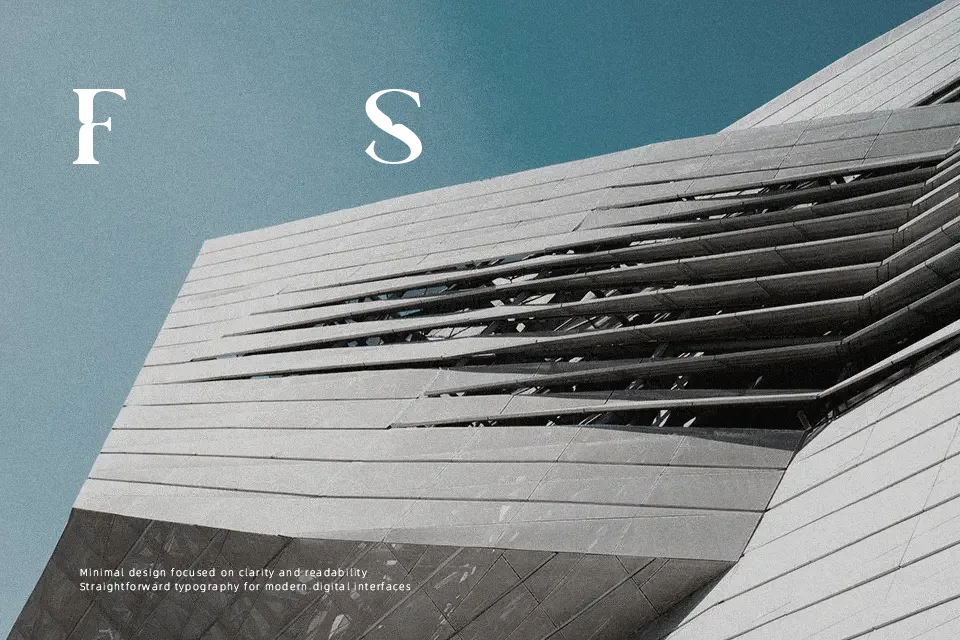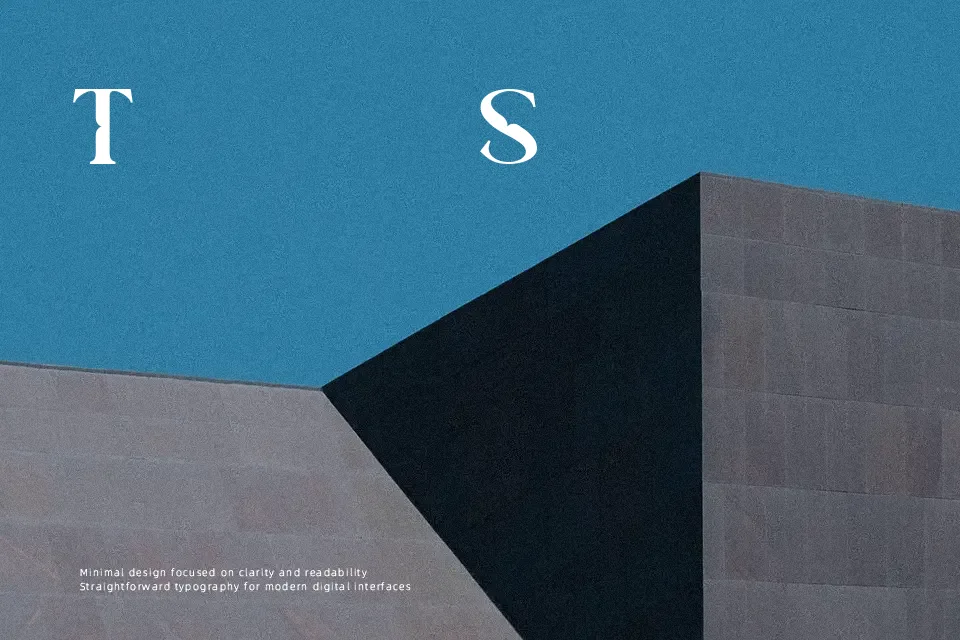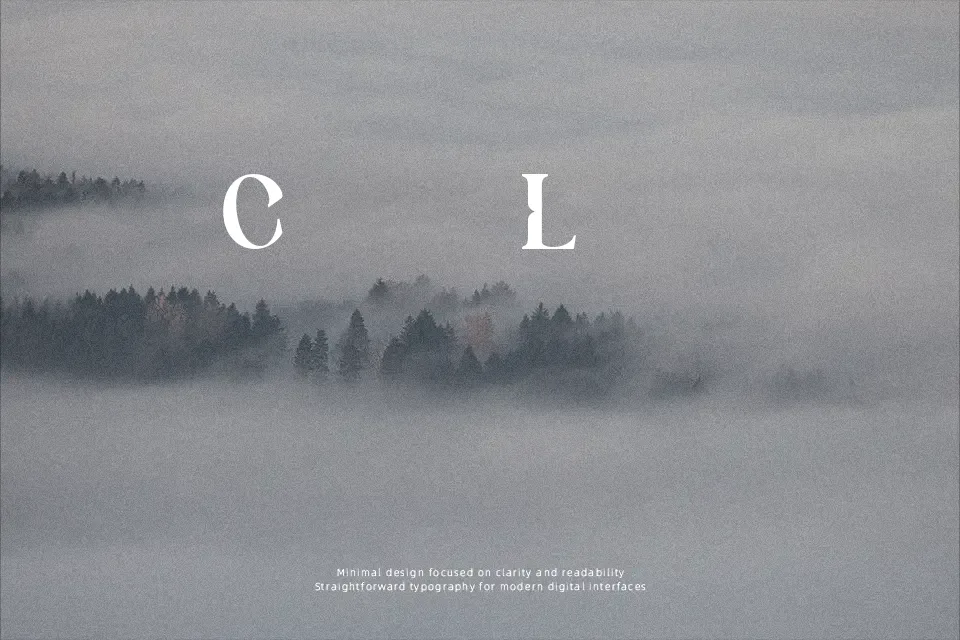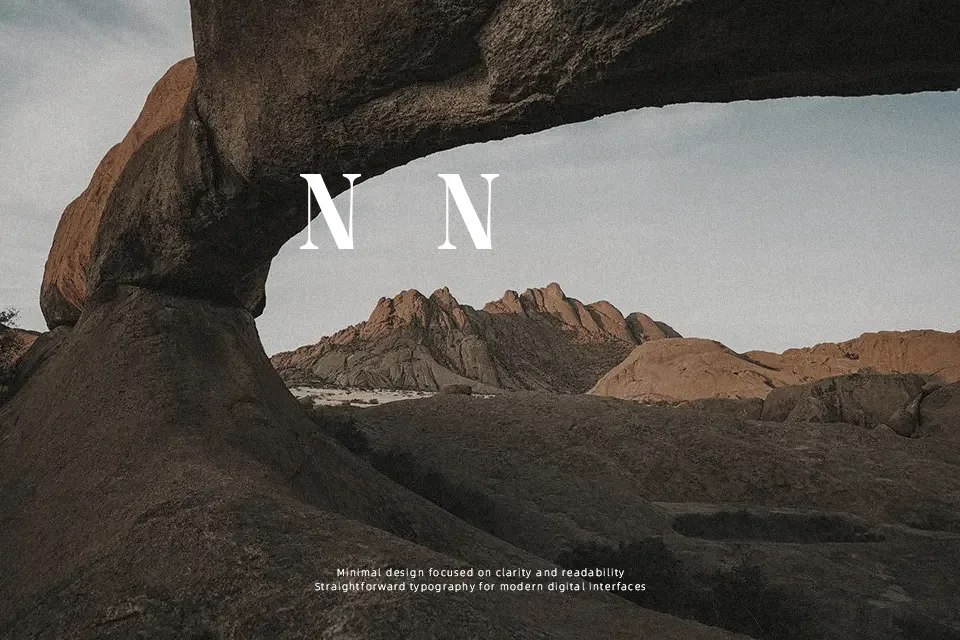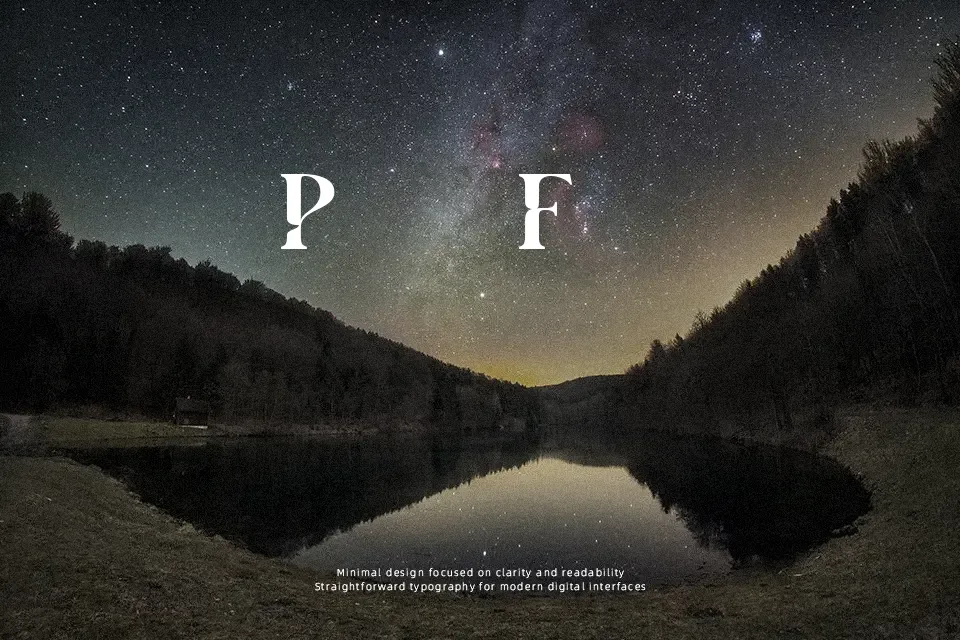
Benogi Font
Designed by Achmad Yani
At its core, Benogi works through contrast — the stroke width shifts between thick and thin in a way that gives each character a dressed-up, editorial presence. The letterforms include connected alternates that feel hand-crafted without leaning fully into script territory, sitting somewhere between formal serif and ornamental display. This makes it a reasonable fit for wedding stationery headers, boutique branding, and print-based quotes or poster copy. That said, it’s a single-weight font: no bold, no light variant, no italic — which limits how far you can stretch it across a design system. At small sizes or in paragraph blocks, the decorative details collapse into noise rather than elegance. Works well when set large and given room to breathe; does not hold up when forced into tight, information-dense layouts.
Best For:- Wedding invitation headers and stationery titles
– Boutique or lifestyle brand logo lockups
– Print poster quotes and editorial pull-lines
– Photography studio or beauty business branding
Not Ideal For:- Body text or long-form reading at any size
– Corporate or legal documents requiring neutral tone
– Multi-weight design systems needing bold/light variations
– UI interfaces where legibility under 16px is required
Perfect for branding, business card, and editorial, with a classic and display style.